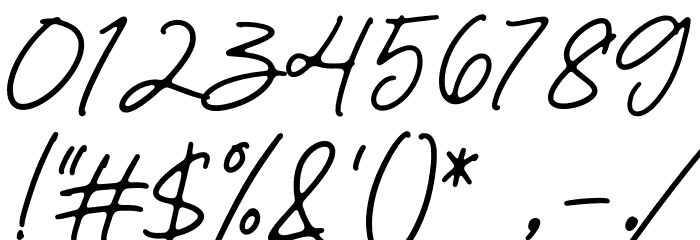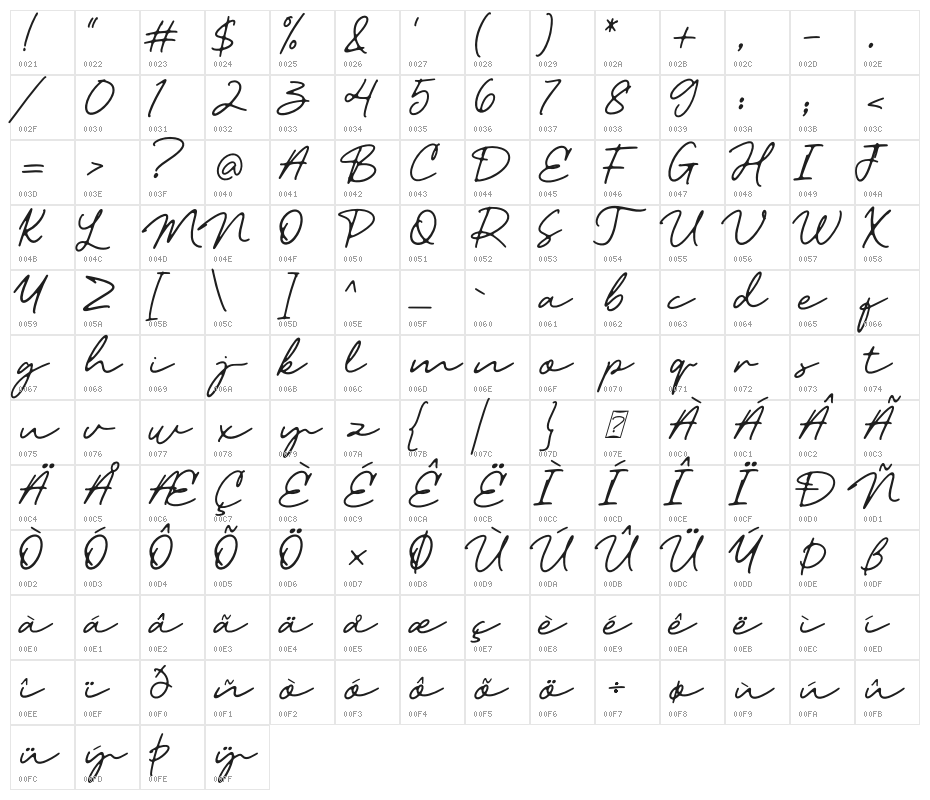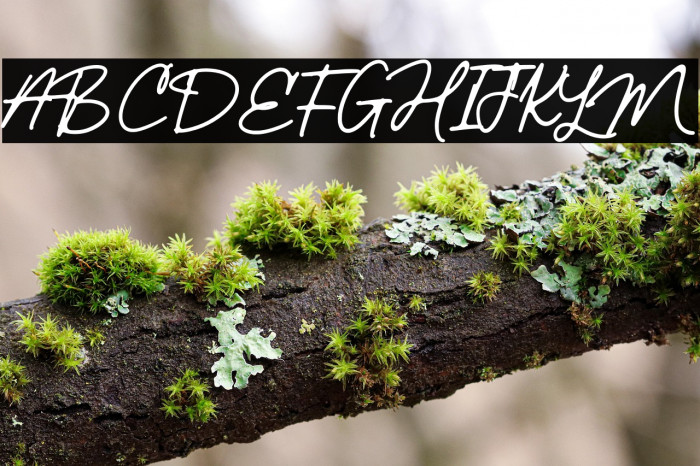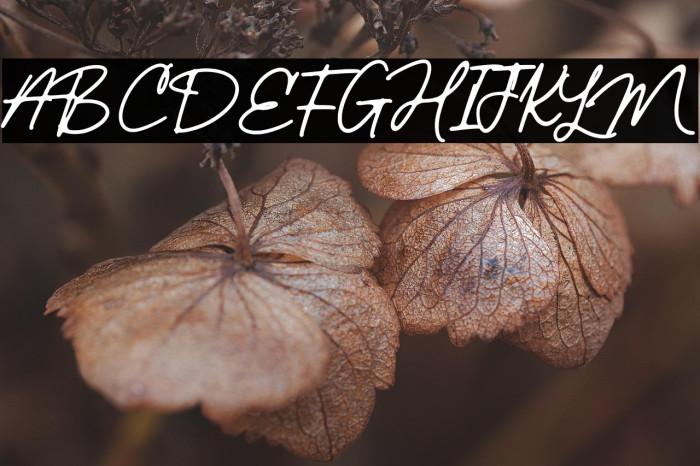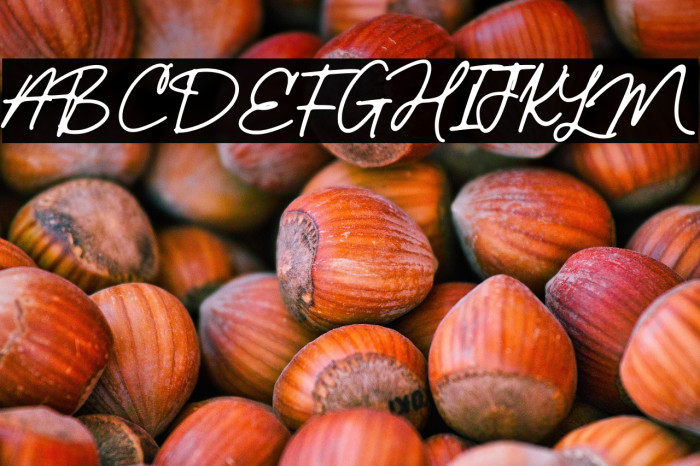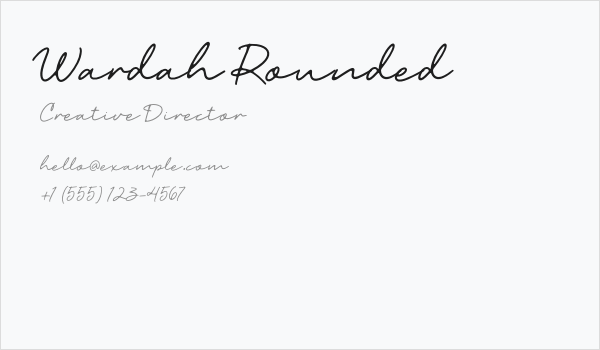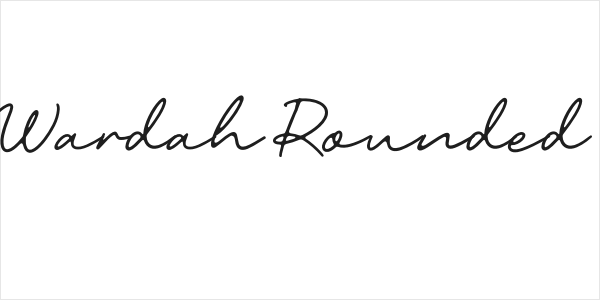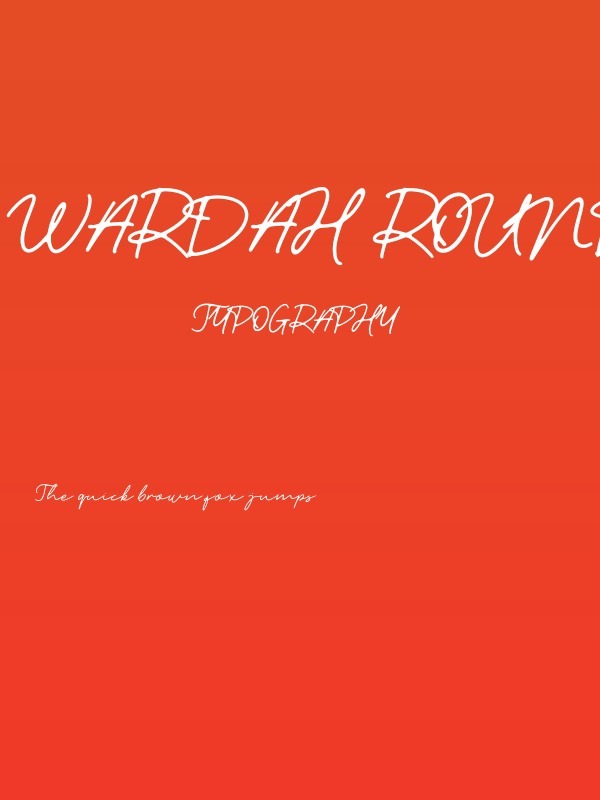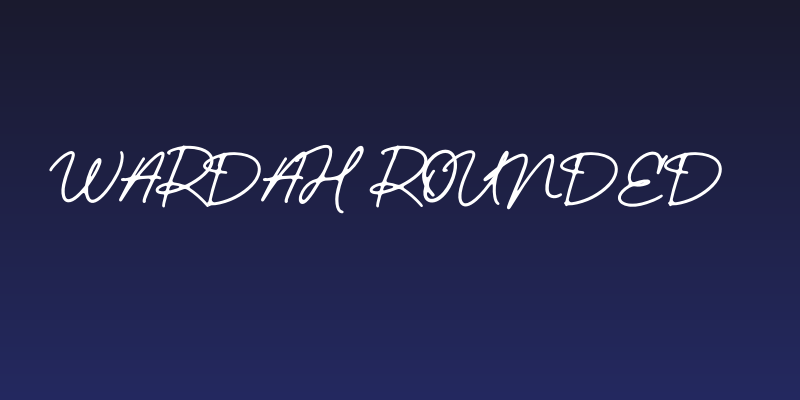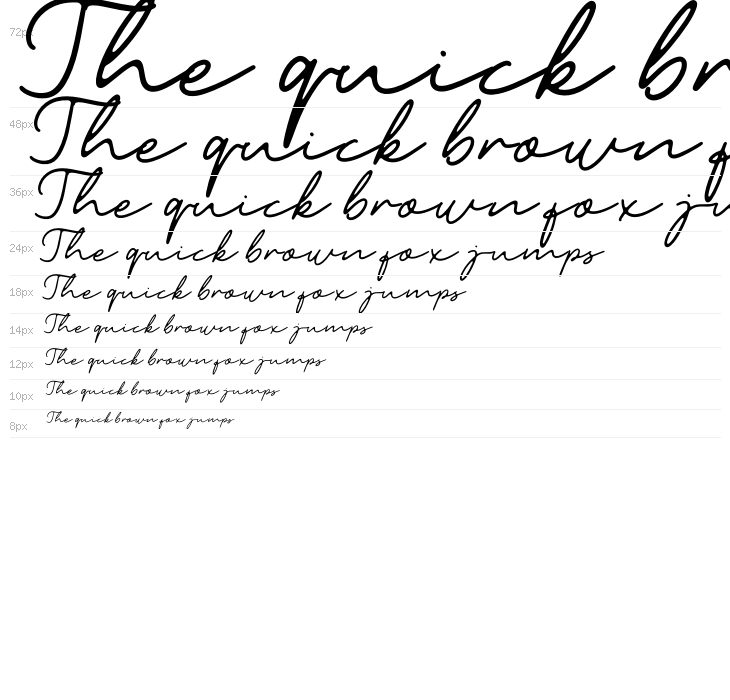
Wardah Rounded Font
Wardah Rounded Description
This font features a smooth, flowing script style that mimics elegant handwriting. The letters are connected, creating a seamless and fluid appearance. The uppercase characters are slightly more elaborate, with flourishes that add a touch of sophistication. The lowercase letters maintain a consistent style, with gentle curves and loops that enhance readability. Numbers and special characters are designed to match the overall aesthetic, ensuring a cohesive look across all text. This font is perfect for projects that require a personal, handwritten touch.
| Use Case | Logos, Invitations, Personal branding |
| Proposed Projects | Ideal for wedding invitations, greeting cards, personal branding, and elegant packaging. |